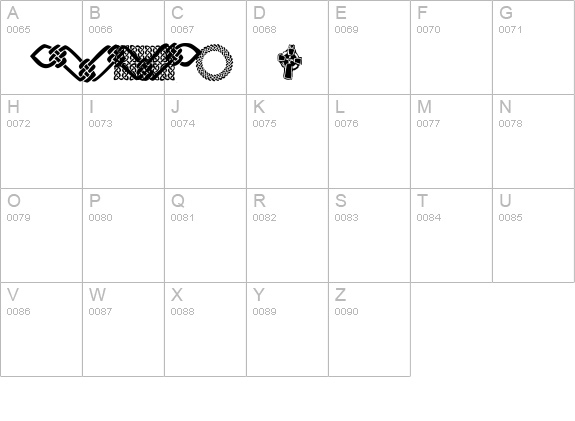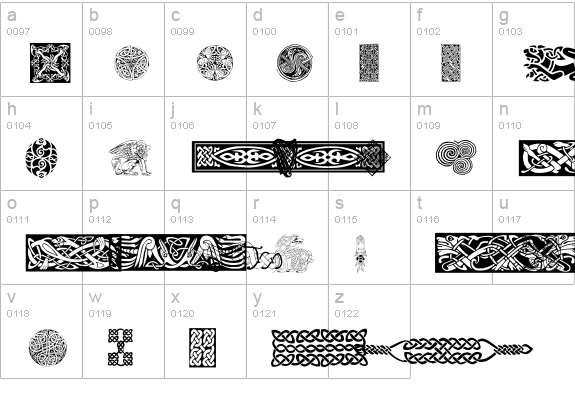
Celtic Patterns Font Details
The Celtic Patterns font is a stunning display typeface that draws inspiration from ancient Celtic art and design. Featuring intricate knotwork and interlacing patterns, this font captures the essence of Celtic culture and heritage. Each character is meticulously crafted with attention to detail, making it perfect for adding a touch of elegance and mystique to your projects. This unique font is not only visually striking but also versatile, suitable for a wide range of design purposes such as logos, invitations, posters, and more. Its timeless aesthetic appeals to those looking to infuse their work with a sense of history and tradition. Best of all, the Celtic Patterns font is available for free download at FontsMarket.com, making it easily accessible for designers and enthusiasts alike. Don't miss out on the opportunity to enhance your projects with this exquisite font that celebrates the rich artistic legacy of the Celtic culture. Unlock the beauty of Celtic artistry with the Celtic Patterns font today!